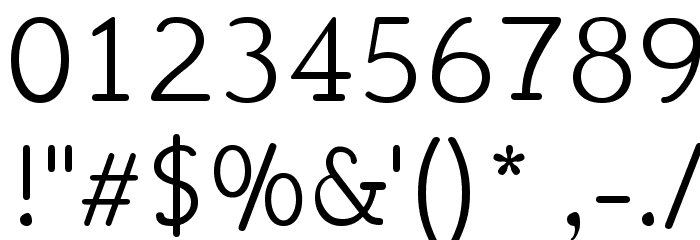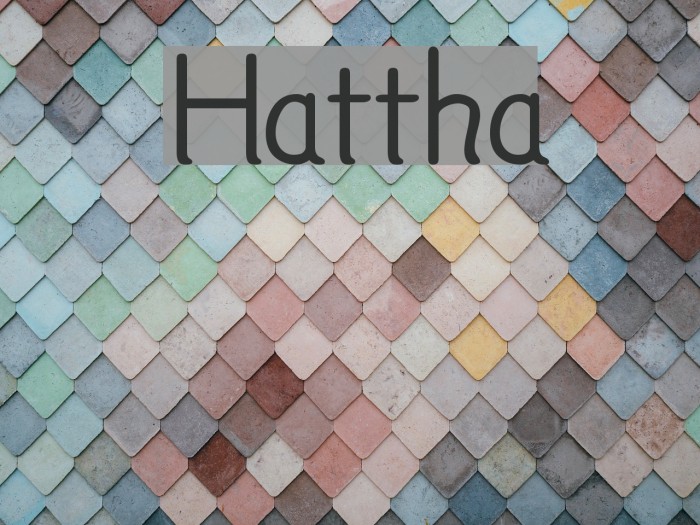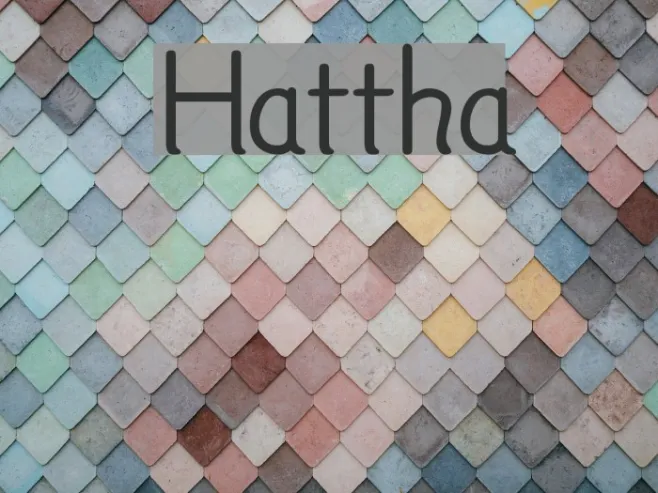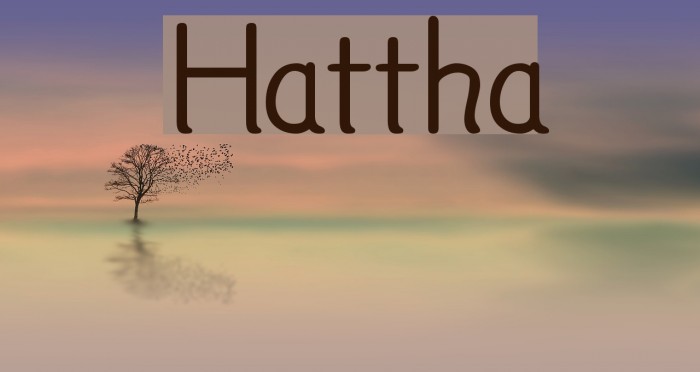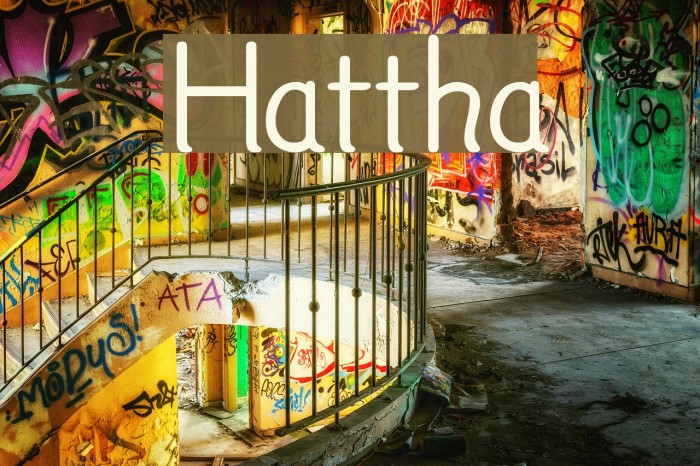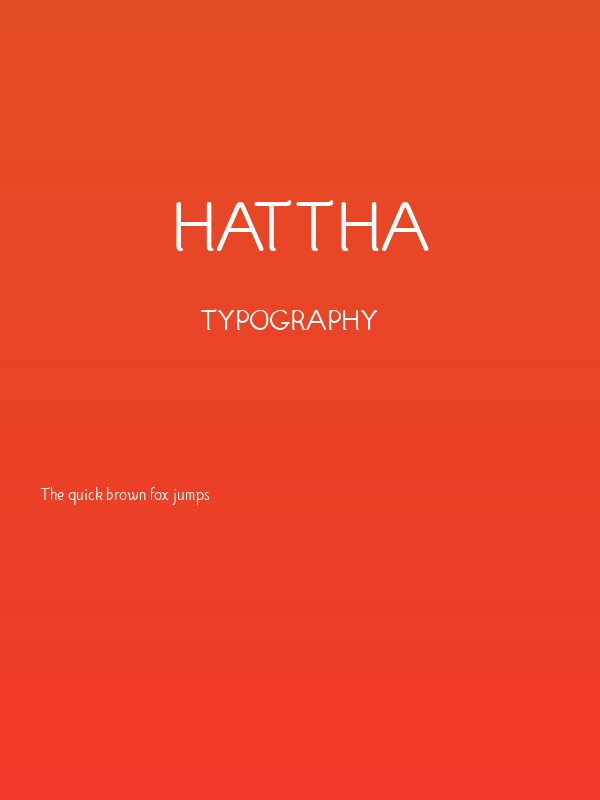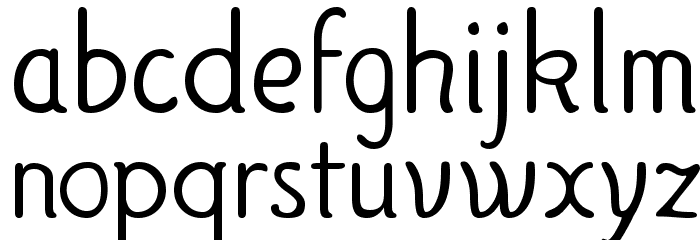
Hattha Font
Hattha Description
This font features a clean and modern design with a slightly rounded appearance, giving it a friendly and approachable feel. The characters are evenly spaced, contributing to excellent readability. The uppercase letters are bold and assertive, while the lowercase letters maintain a consistent flow with subtle curves. Numerals are clear and distinct, making them easy to read. The special characters are well-integrated, maintaining the overall aesthetic of the font. This font is versatile, suitable for both digital and print media, and can be used in a variety of design projects.
| Proposed Projects | Ideal for branding, web design, advertising, and editorial projects. |